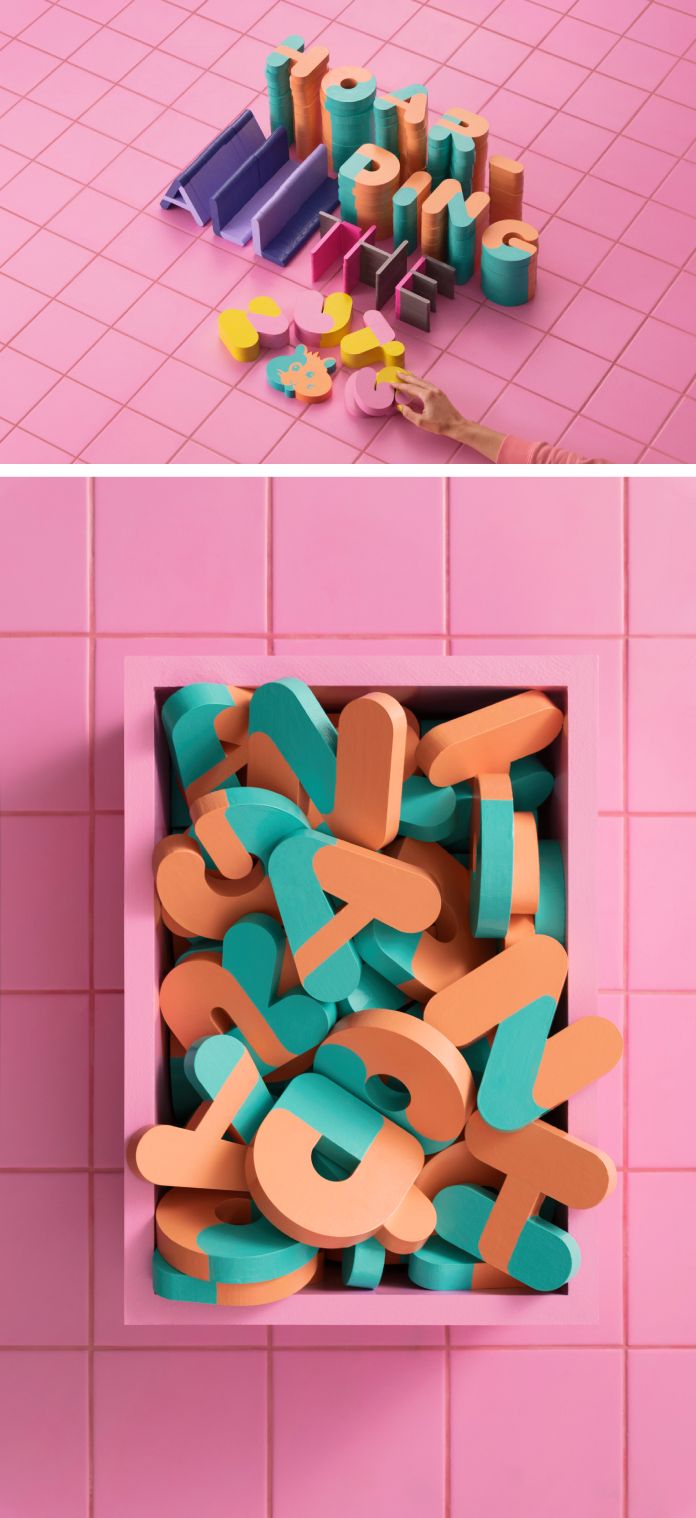
Check out Hamster, a variable color font by Fontwerk.
Fontwerk teamed up with the internationally renowned design agency SNASK on a video campaign to launch their new Hamster font family. Bold, cheerful, and full of joy – the idea was to bring this cheerful and colorful font to life in a unique way. The campaign can be experienced in full on the specially created microsite www.hamsterfont.com.
Hamster is the brainchild of acclaimed brand identity designer, Joe Stitzlein. It draws inspiration from the two-tone charm of his childhood friends’ pets and rodent dwellings (aka “Habitrails”). Using the tubular shape of the “Habitrails”, Hamster is an uppercase display typeface. It has rounded ends and bold font styles that are reminiscent of the characteristic chubby cheeks of rodents. The lighter cuts are less playful and are perfect as logos for young fashion or food brands. Hamster is available in 10 color variants, but users can also choose the color scheme individually.
The Hamster font is perfect for expressing your playful and adventurous spirit. With its unique, two-tone charm, it will give your designs a remarkable look that stands out from the crowd. Feel free to learn more at www.fontwerk.com.